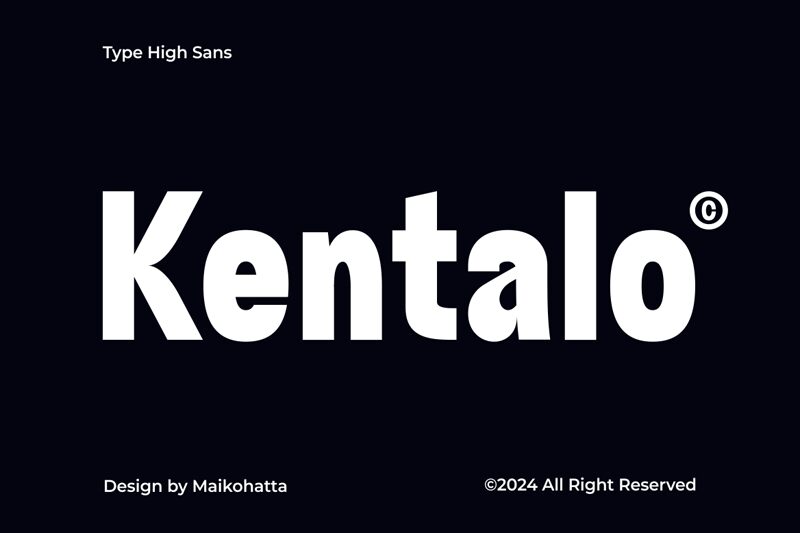
Kentalo font family by Gilang Ternadho is a free sans serif font delivering modern and clean visuals. The versatile basic shapes of the font are able to provide a professional look to contemporary applications with emphasis on clarity and readability. Kentalo is created in 2 font styles which can be freely used in around personal design projects of all sorts.
The sans-serif typeface’s modern and minimalistic visual presentation makes it the perfect candidate for technology-centered designs and branding of all sorts. The font pairing is also perfect for magazines and posters for which printers will appreciate its ink-saving properties.